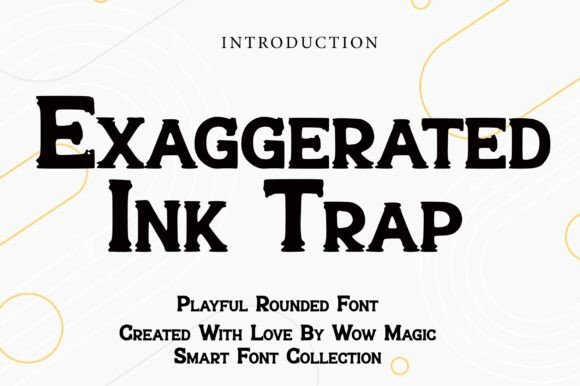
The Power of Typography: Unleashing the Potential of Exaggerated Ink Trap Font
Have you ever stared at a beautiful poster, mesmerized by the bold typography that grabs your attention? For many designers, that ‘aha’ moment comes when they find the perfect font to elevate their work. For me, it’s the thrill of discovering a font that not only adds style but also personality to a design.
Enter Exaggerated Ink Trap Font, a display serif typeface designed to make a statement. Its striking exaggerated ink trap details bring a level of sophistication and visual impact that’s hard to ignore. Whether you’re crafting a brand identity, creating social media graphics, or designing posters, this font adds a level of professionalism and style that’s sure to leave a lasting impression.
For designers, Exaggerated Ink Trap Font is a valuable asset that can take your work to the next level. Its versatility and bold letterforms make it perfect for a wide range of applications, from packaging and apparel designs to editorial layouts and branding.
Exaggerated Ink Trap Font Features
- Unique Characteristic: Exaggerated ink trap technology for improved print quality and reduced bleeding
Exaggerated Ink Trap Font Review
First off, I’d say the Exaggerated Ink Trap Font has a lot of charm to it. The unique, hand-drawn style gives off a whimsical, vintage vibe that’s perfect for creative projects.
✨ One of the things that really works well with this font is its versatility. It’s great for headings, body text, and even for creating decorative elements. The ink trap effect adds a nice touch of texture and visual interest.
✨ The font also includes a wide range of weights, from light to bold, which makes it easy to use in a variety of design contexts. Plus, the font is highly customizable, allowing you to adjust the spacing, leading, and even the color of the text.
⚠️ One of the main limitations of this font is its readability. The hand-drawn style can sometimes make the text look cluttered or difficult to read, especially at smaller font sizes.
⚠️ Another limitation is the lack of support for certain languages. If you need to typeset text in a language that uses non-Latin scripts, you may find that the font doesn’t support it.
In conclusion, the Exaggerated Ink Trap Font is a great choice for designers who want to add a touch of personality to their projects. While it may not be the best choice for every design context, it’s definitely worth considering for projects that require a unique, hand-drawn feel.
Recommendation
- Use this font for creative projects, such as book covers, invitations, or branding materials.
- Avoid using this font for body text that requires high readability.
- Experiment with different weights and customizations to achieve the desired look.
Exaggerated Ink Trap Font Practical Application Guide
For a unique look, experiment with layering and combining the font with other design elements.
For a creative effect, try using the font in a distressed or vintage style.
For a dramatic effect, use the font in a title or heading.
Use Exaggerated Ink Trap Font for:
– Distressed or vintage-style designs
– Creative title or heading effects
– Unique, eye-catching typography
Remember to experiment with layering, combining with other design elements, and adjusting font settings to get the most out of this versatile font.
Alternatives to Exaggerated Ink Trap Font
Playfair Display is an elegant, high-end serif font ideal for use in luxury branding, magazines, and high-end packaging. Its classic feel makes it perfect for formal invitations, awards, and special occasions.
Playfair Display is more ornate and formal than Exaggerated Ink Trap Font, with a more traditional look and feel. While Exaggerated Ink Trap Font has a more modern, stylized feel, Playfair Display is better suited for classic or vintage-inspired designs.
Great Vibes is a modern script font perfect for use in creative, artistic, or emotive branding. Its flowing lines and soft curves make it ideal for use in invitations, quotes, and other text-based designs.